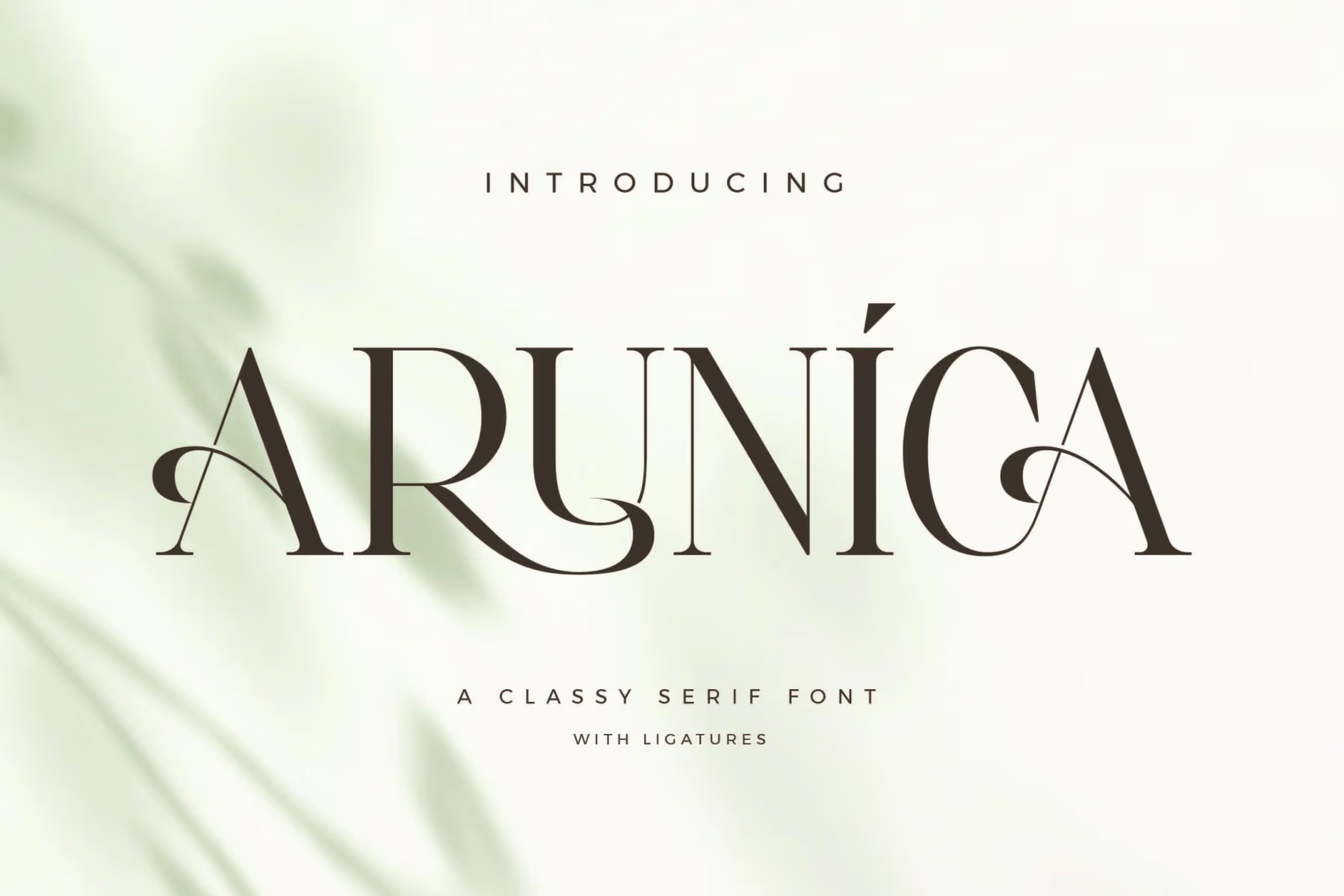
Arunica Font
Arunica Font is a stylish typeface that enhances visual appeal and works effortlessly in many design contexts. Arunica Stylish Ligature Typeface, inspired by the famous minimalist logo perfect for the purposes of designing templates, brochures, videos, advertising branding, logos and more.